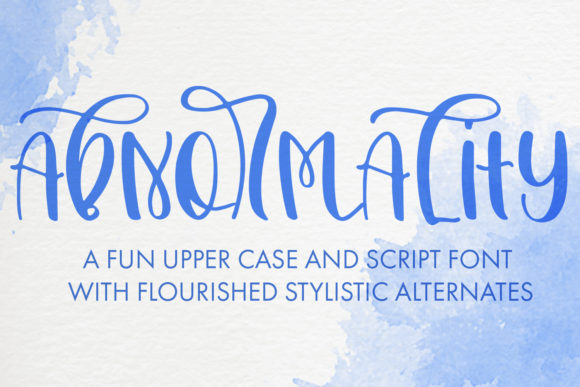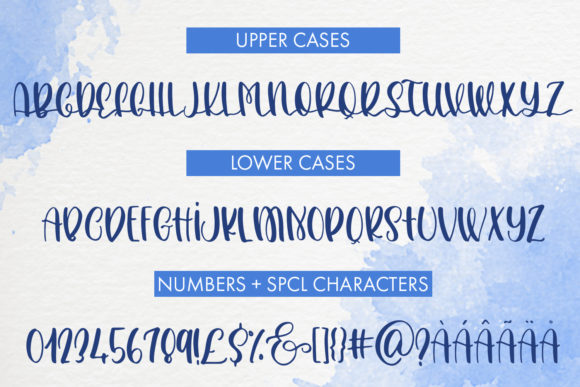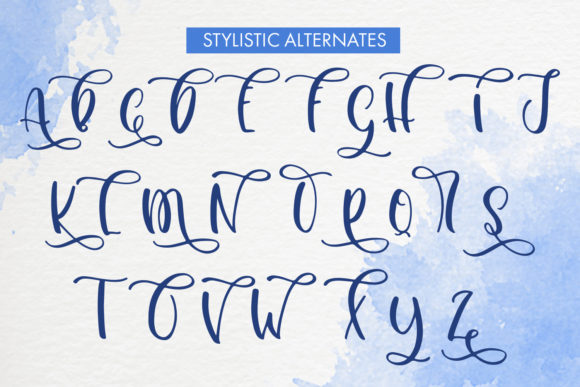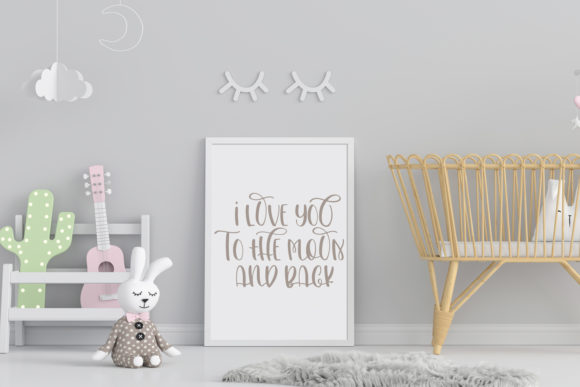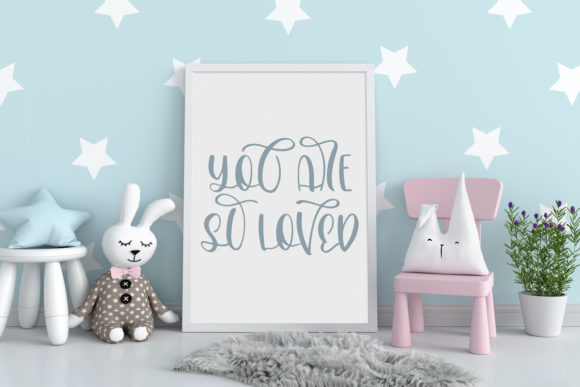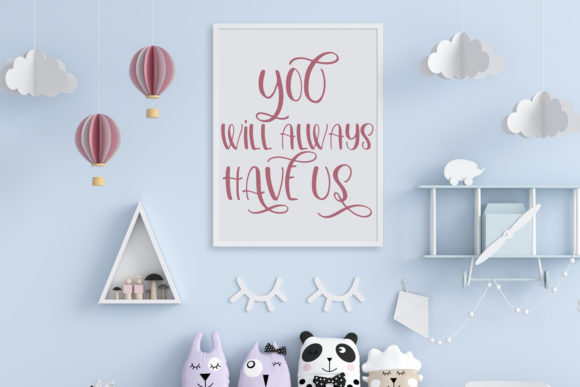
Abnormality Font
About Abnormality Font
Abnormality is a font that possesses a unique and captivating charm, making it a perfect choice for adding a touch of sophistication and elegance to various design projects. Its delicate and timeless handwritten style will leave a lasting impression on recipients and viewers. Here are some inspiring ways to utilize Abnormality to elevate your creative designs:
1. Wedding Invitations: Use Abnormality to create exquisite and romantic wedding invitations, setting the tone for a memorable and elegant celebration.
2. Thank You Cards: Craft beautiful thank you cards with Abnormality, expressing gratitude with a touch of refined handwritten charm.
3. Quotes and Typography Art: Design stunning typography art or quote posters using Abnormality, making powerful statements with its elegant and distinct letterforms.
4. Greeting Cards: Create sophisticated and heartfelt greeting cards for various occasions with Abnormality, leaving a lasting impression on recipients.
5. Logos and Branding: Apply Abnormality to logos and branding materials, infusing brands with an elegant and unique handwritten touch.
6. Business Cards: Design elegant and memorable business cards with Abnormality, leaving a lasting impression on potential clients and partners.
7. Personal Stationery: Use Abnormality for personal stationery, adding a touch of refined elegance to your letters and notes.
8. Book Covers: Apply Abnormality to book covers, creating a sophisticated and eye-catching design that captures readers’ attention.
9. Social Media Graphics: Design elegant and engaging social media posts with Abnormality, adding a touch of sophistication to your online presence.
10. Art Prints: Create timeless and elegant art prints using Abnormality, offering art lovers beautiful pieces to adorn their spaces.
11. Labels and Packaging: Apply Abnormality to labels and packaging designs, adding an elegant and refined touch to products.
12. Event Invitations: Use Abnormality to design invitations for special events, such as galas, anniversaries, or formal gatherings, setting the tone for a classy affair.
13. Signage and Displays: Utilize Abnormality in signage and displays, making a sophisticated and impactful statement in various settings.
14. Magazine Headlines: Apply Abnormality to magazine headlines, adding an elegant and captivating touch to editorial designs.
15. Website and Blog Headers: Use Abnormality for website banners and blog headers, conveying a sense of refined style to your online presence.
Abnormality’s distinctive and timeless handwritten style makes it a versatile font for various design projects, from wedding invitations to branding and beyond. Whether you’re aiming for a classic and sophisticated look or adding an elegant touch to any creative endeavor, Abnormality will undoubtedly make your designs stand out and leave a lasting impression on your audience.